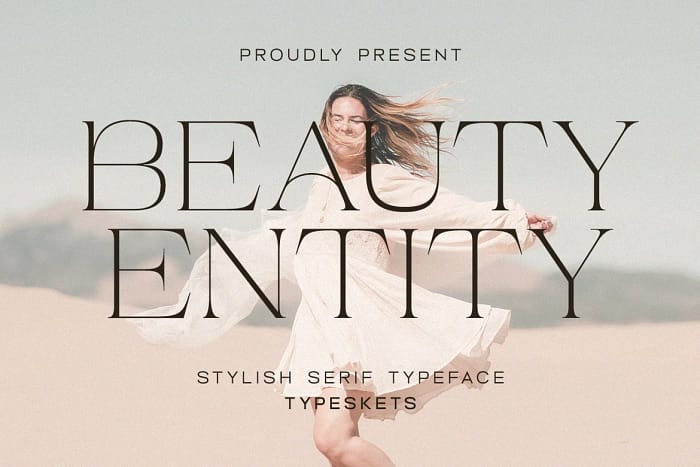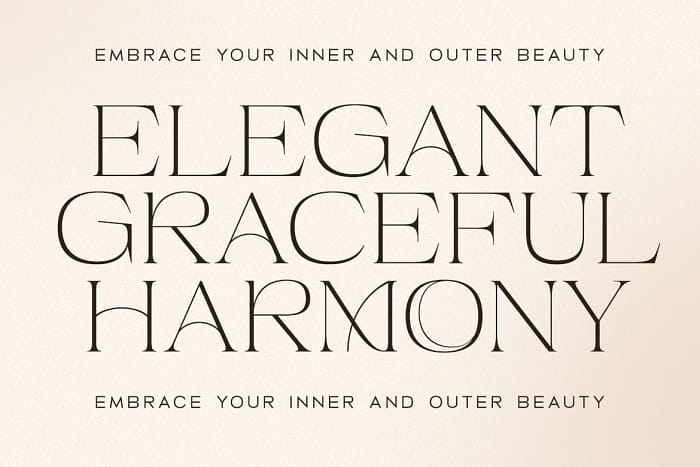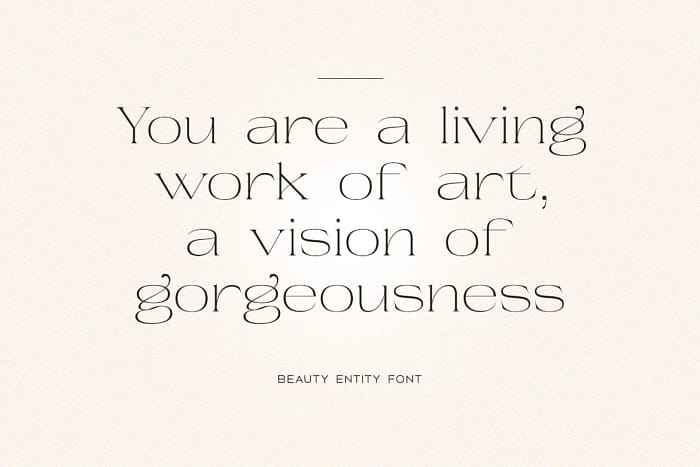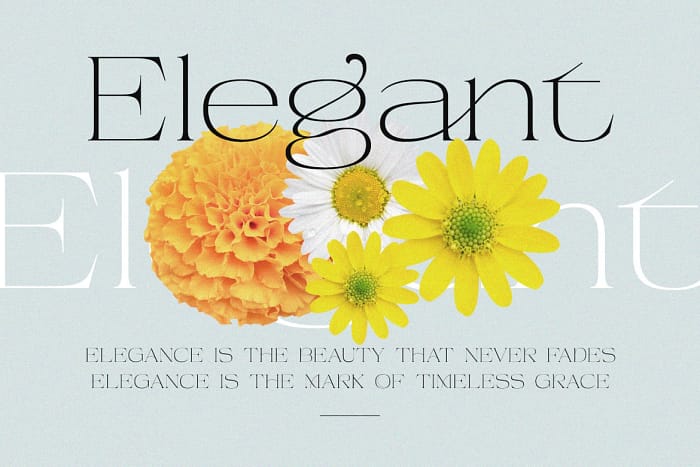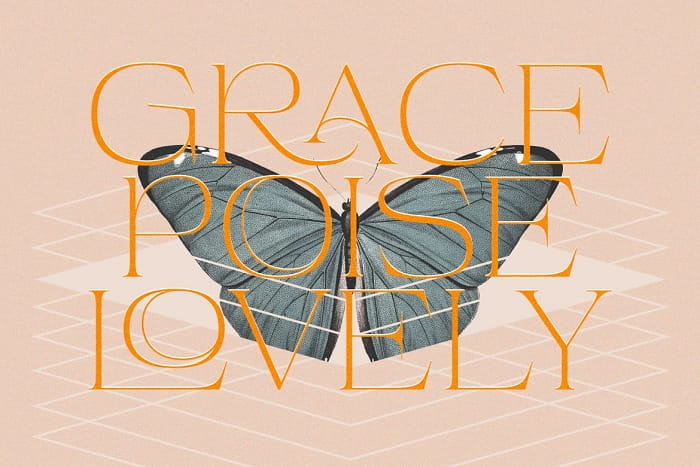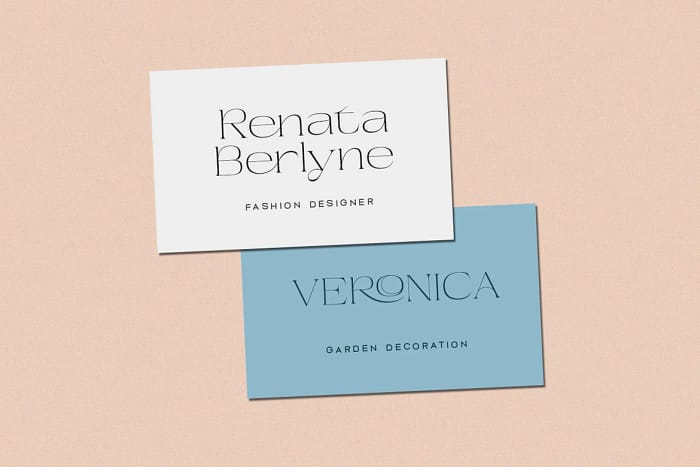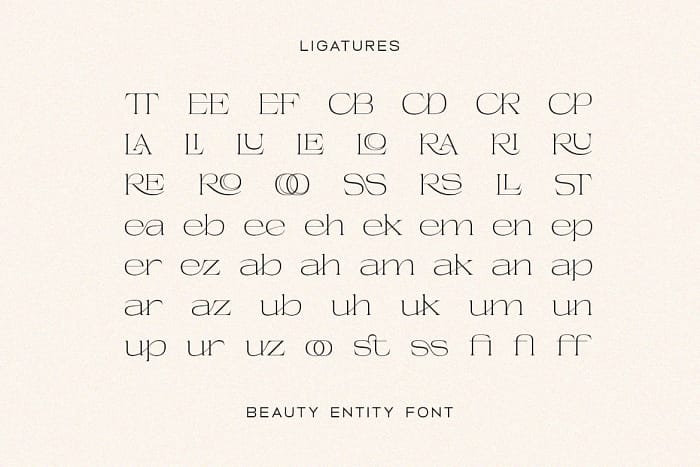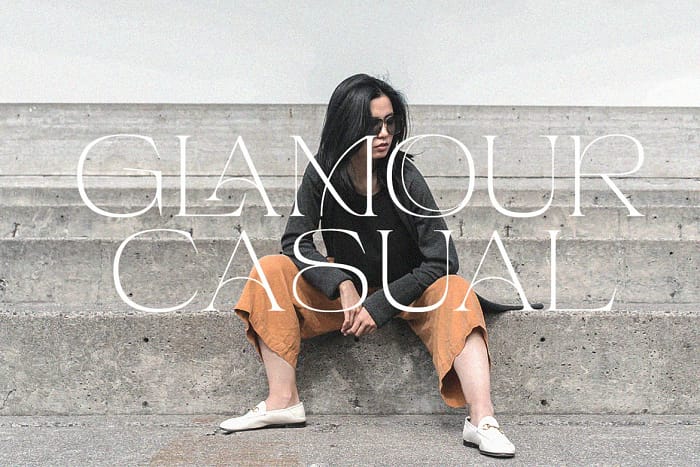
Beauty Entity, a sleek and modern serif typeface that exudes elegance and sophistication. With its minimalist design, this typeface offers versatility and legibility across various mediums. Elevate your projects with Beauty Entity’s clean and stylish aesthetic, capturing attention effortlessly.